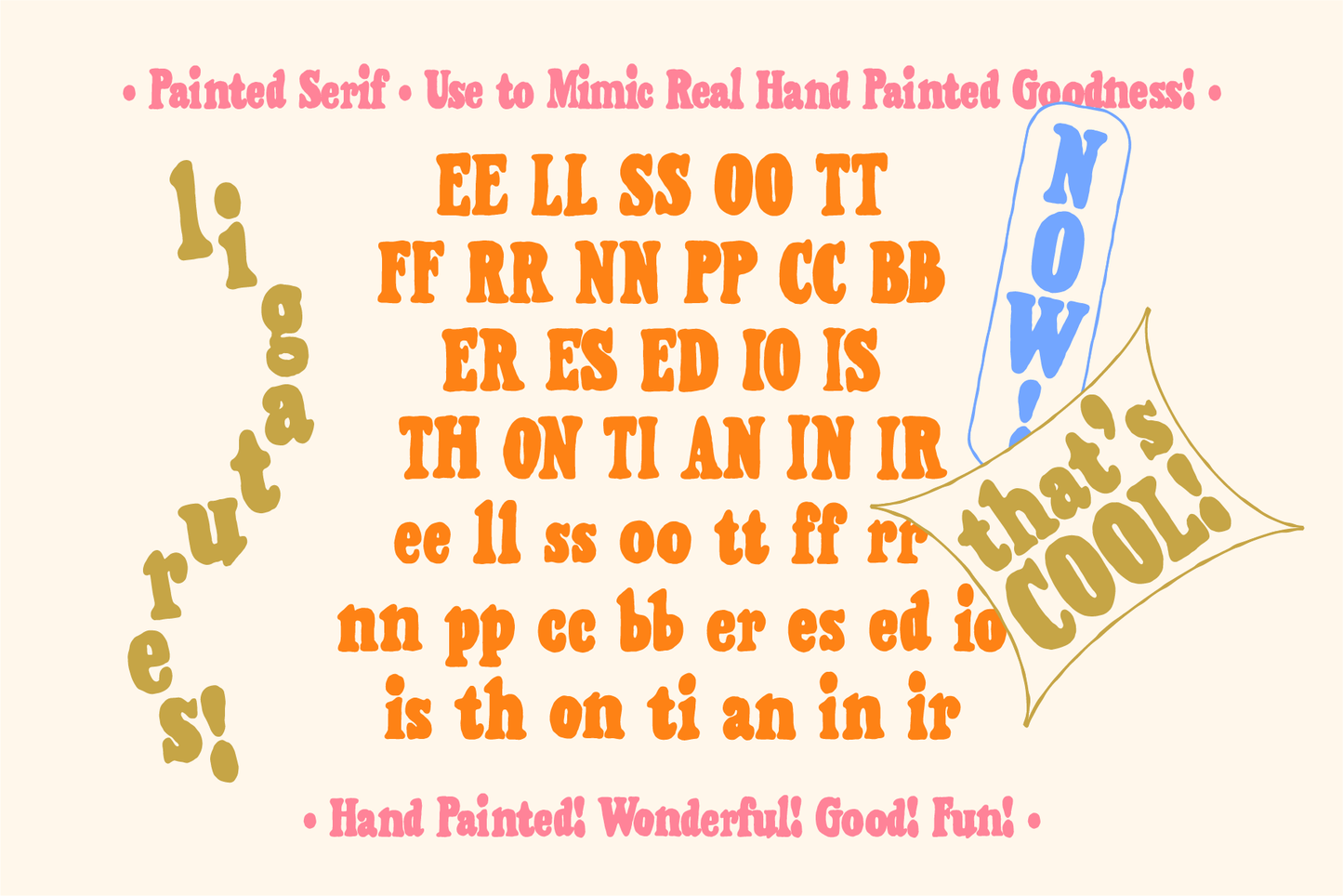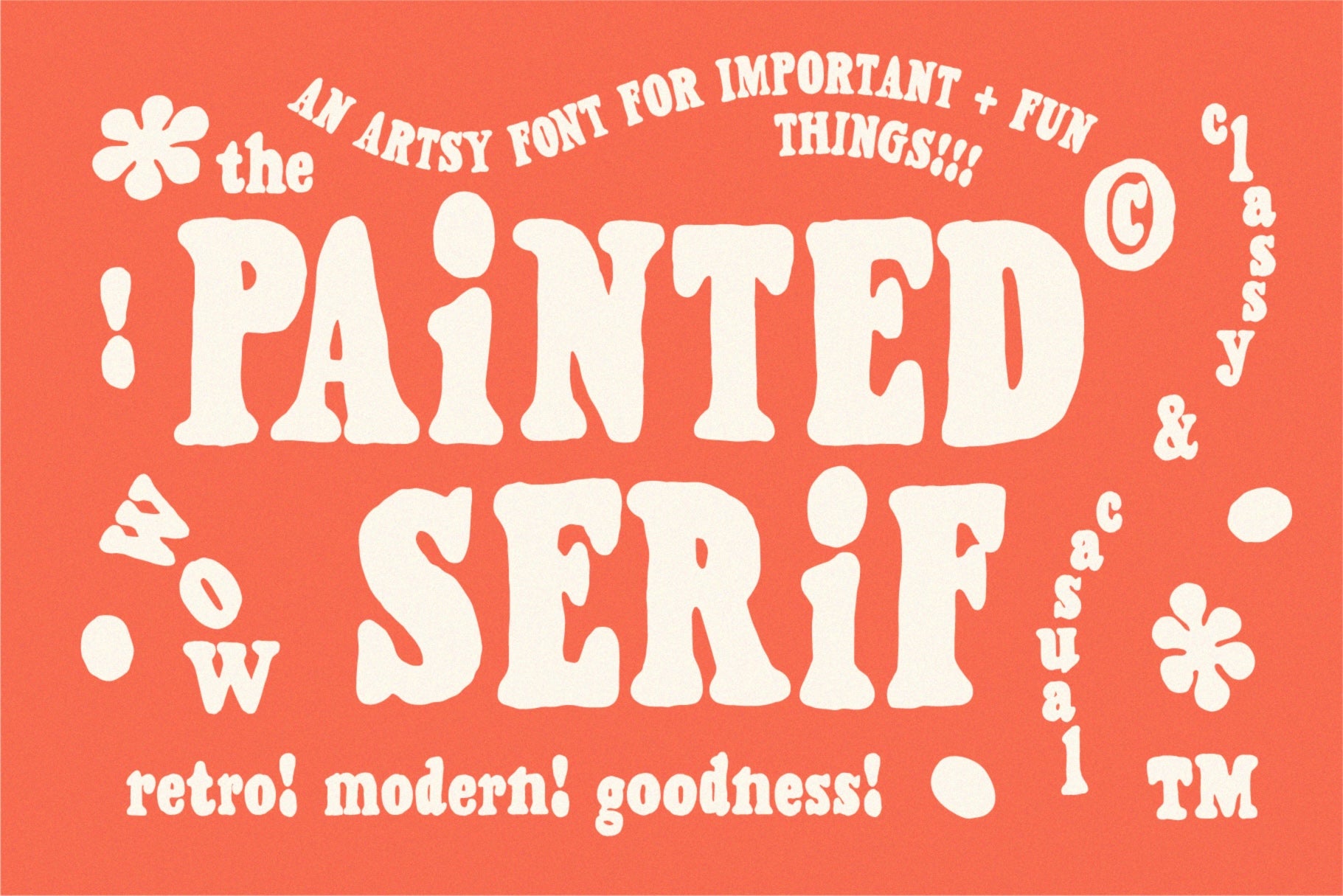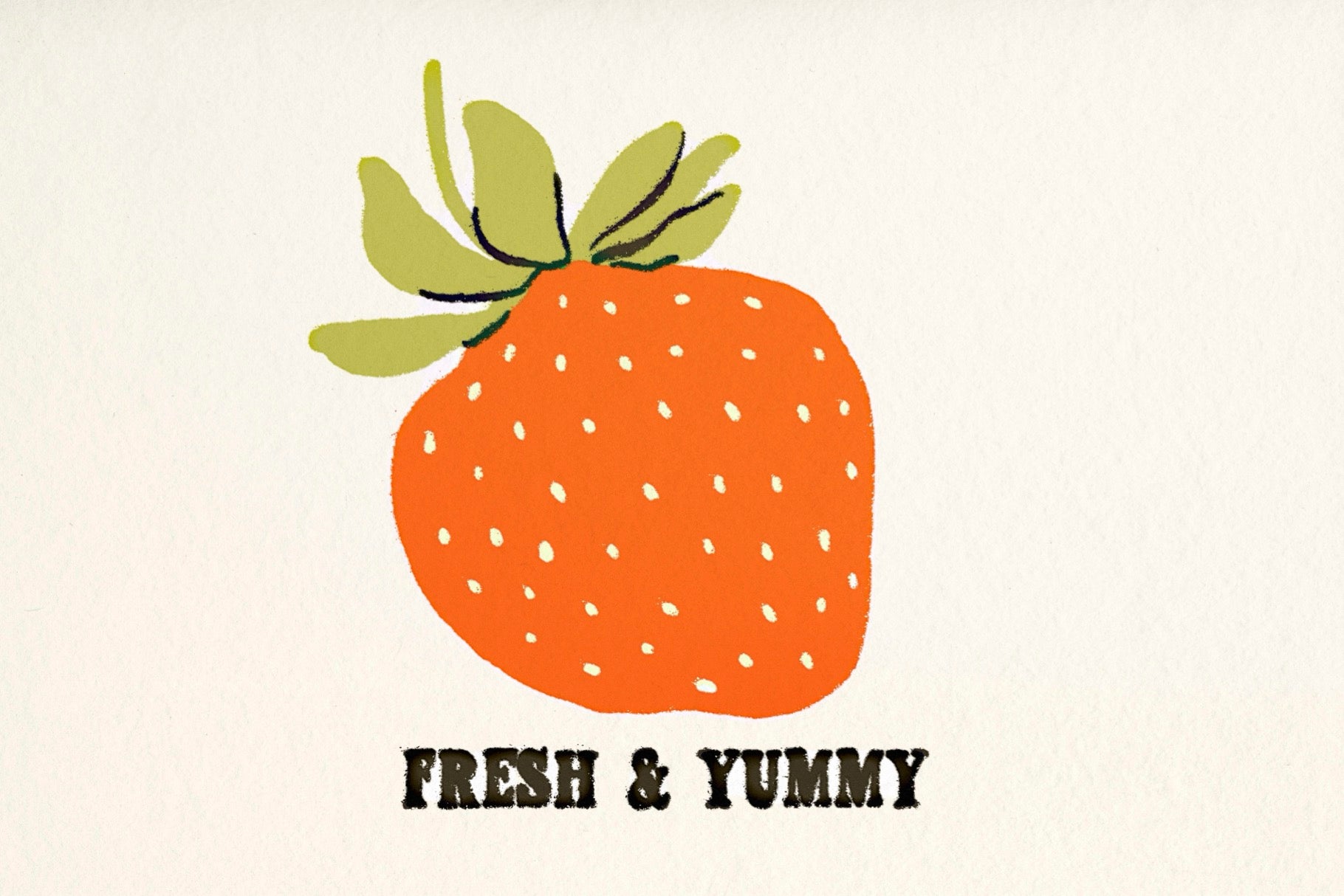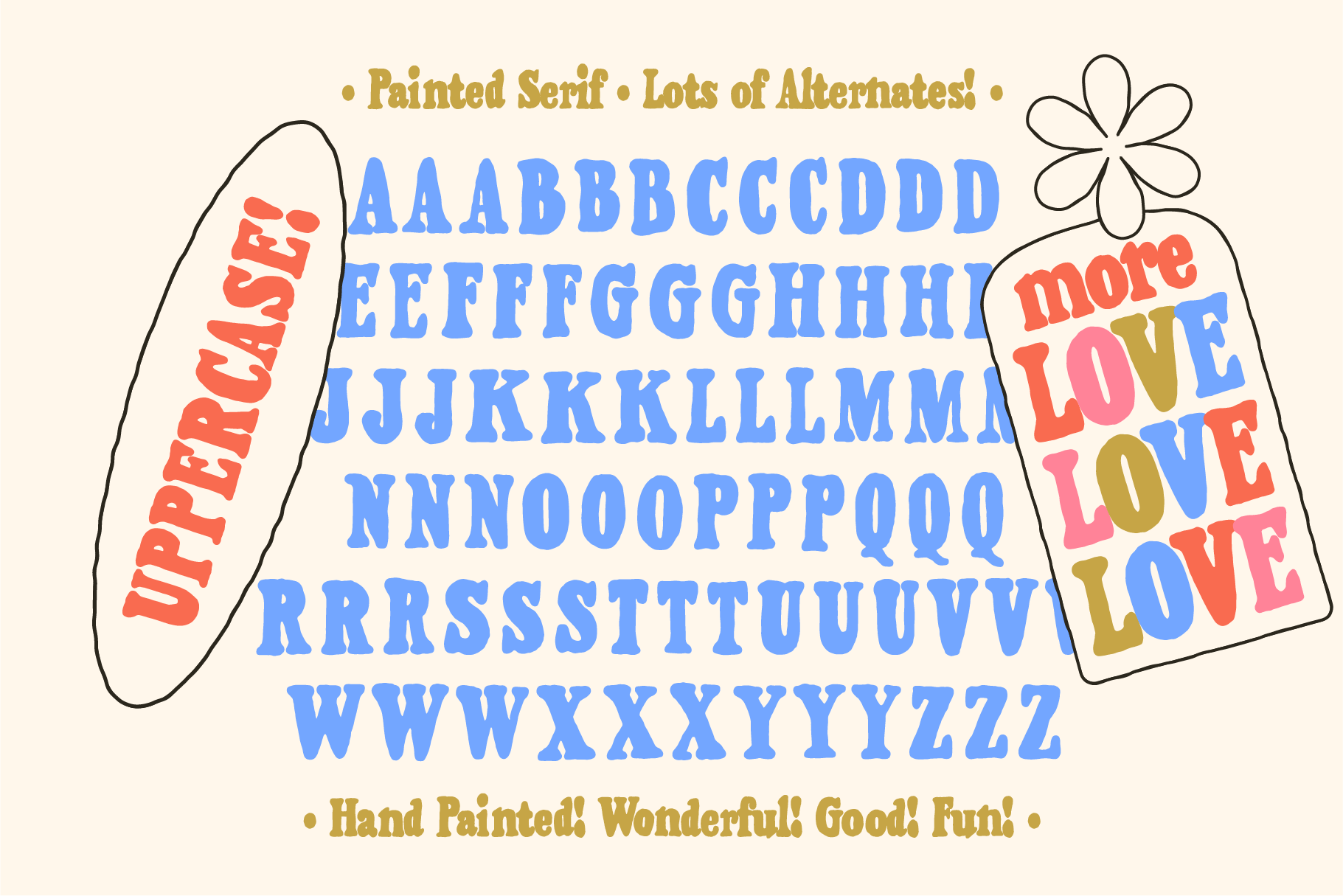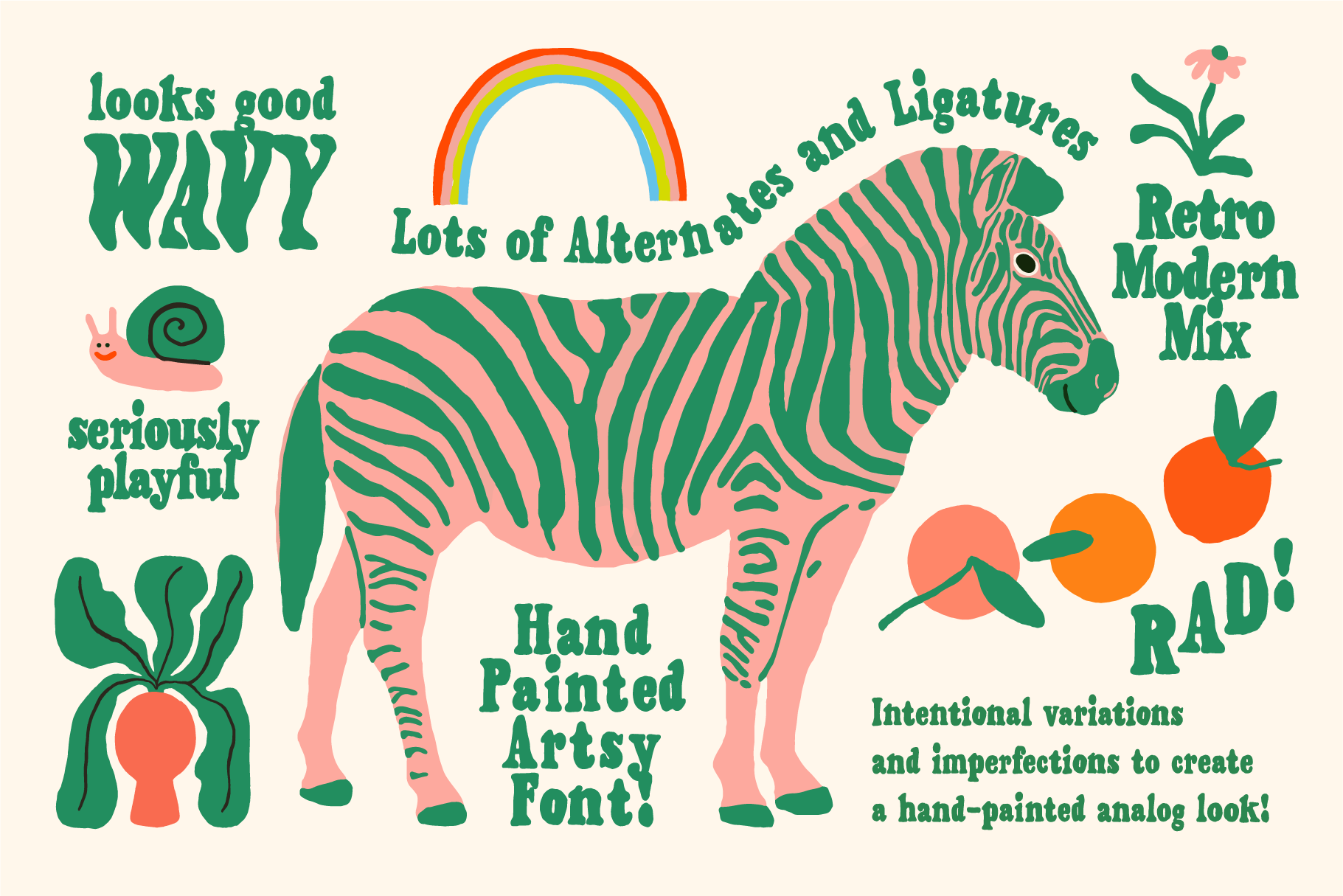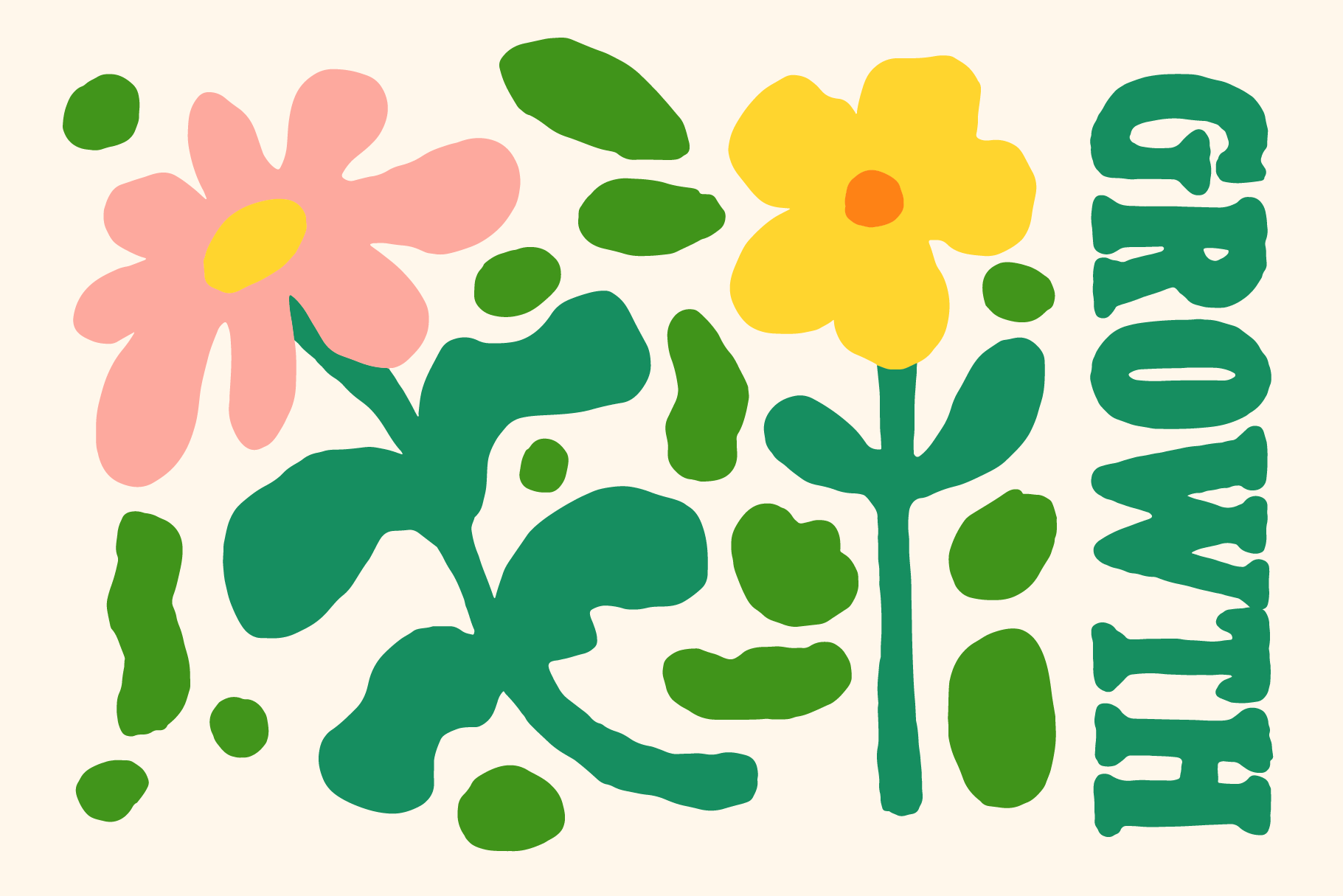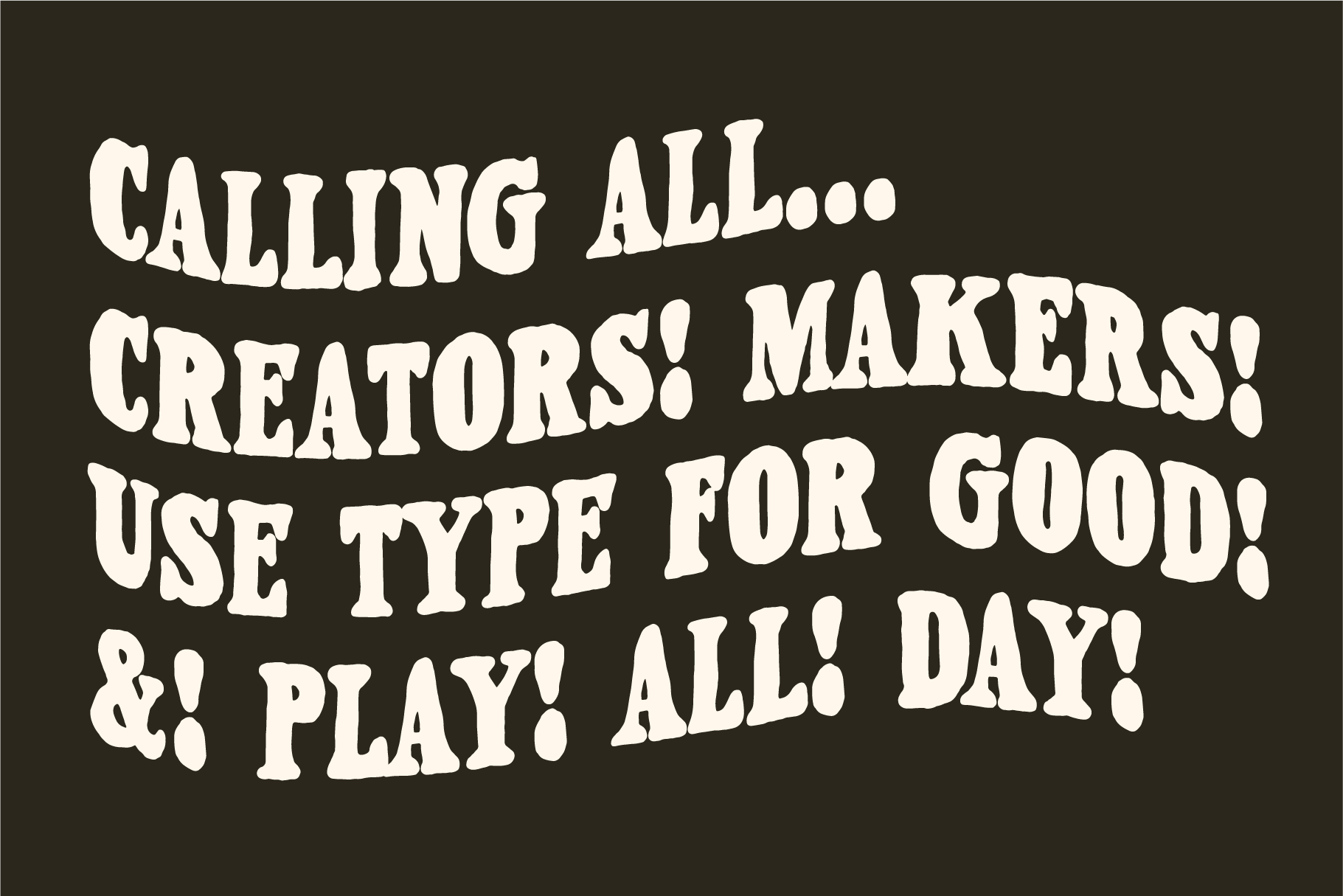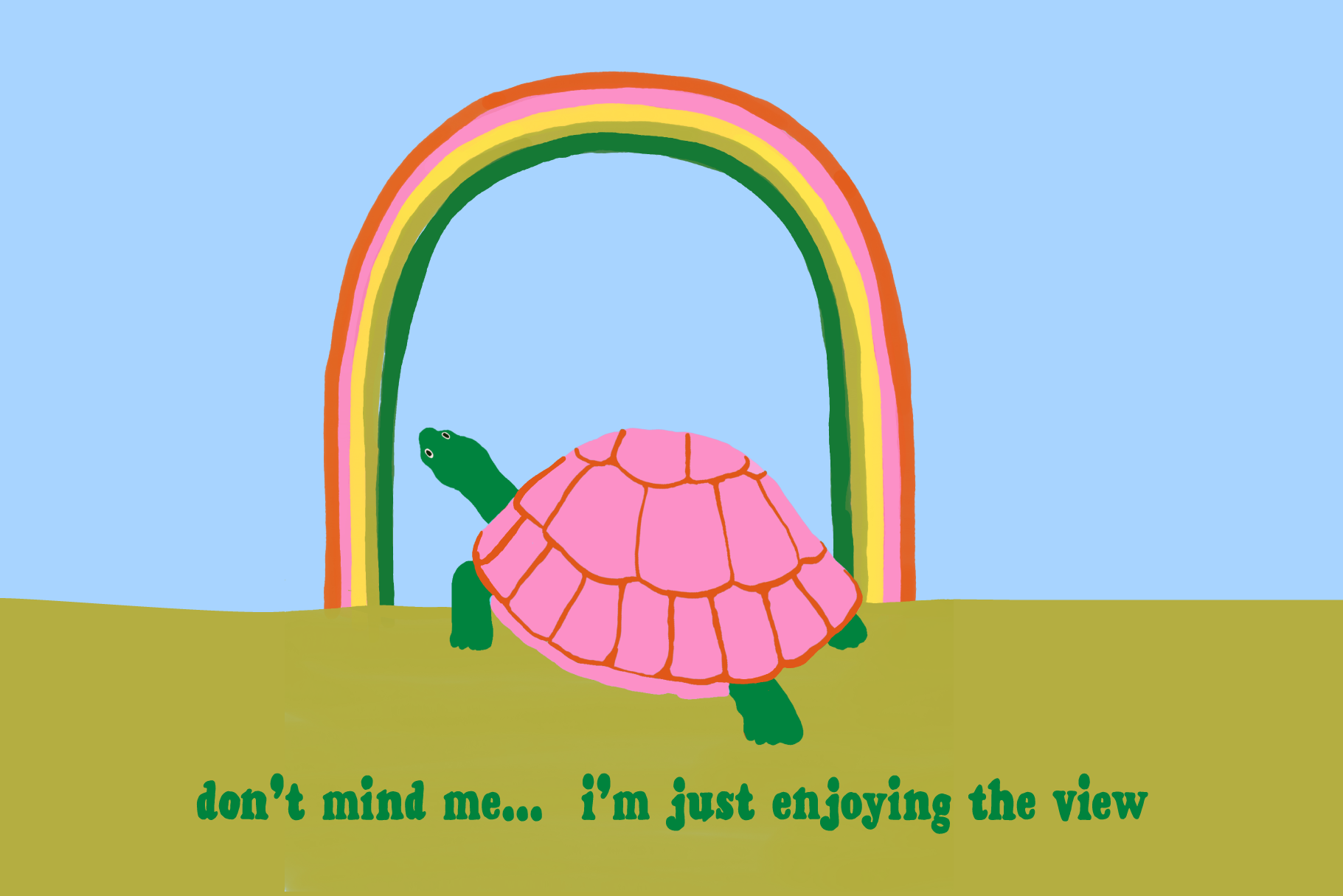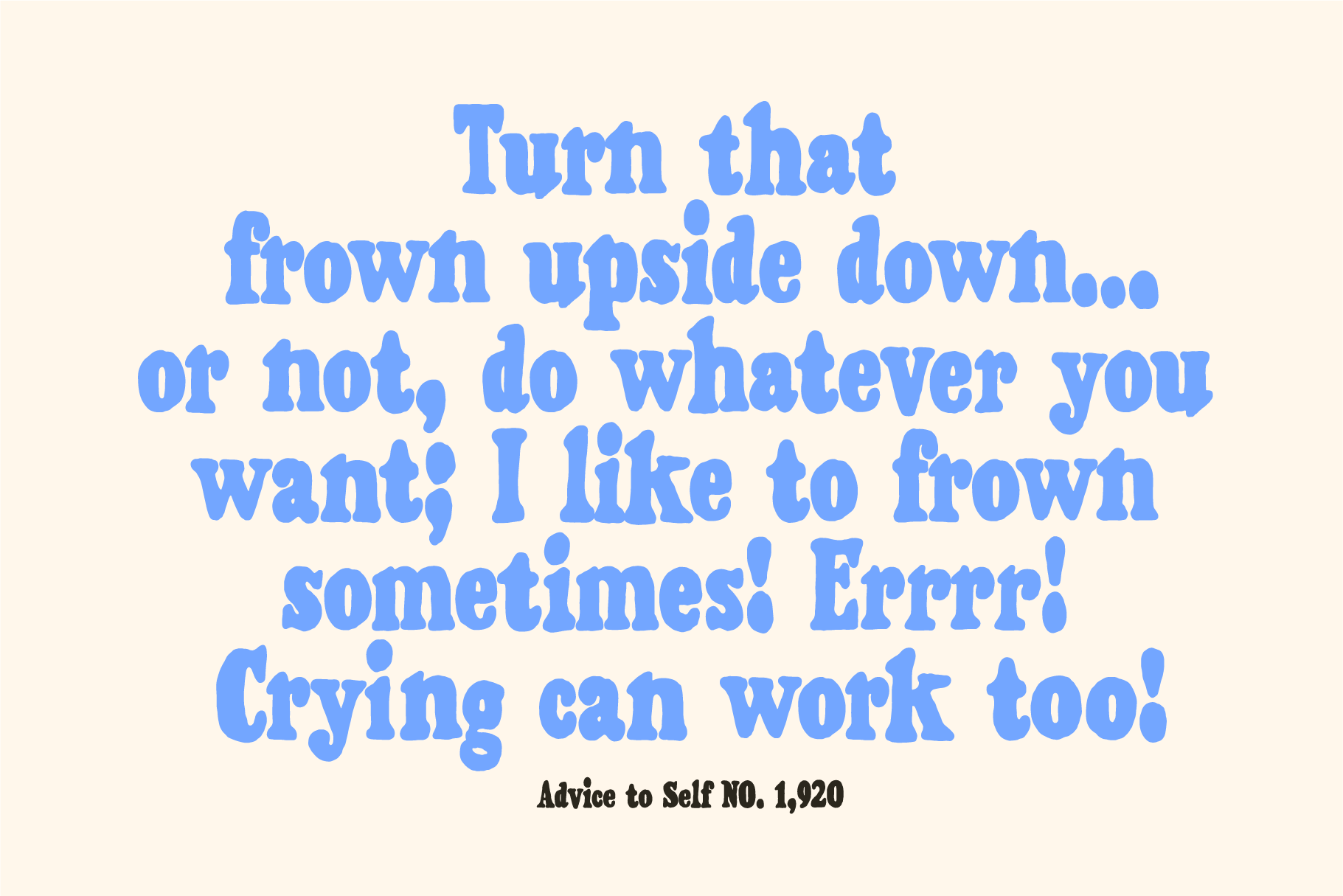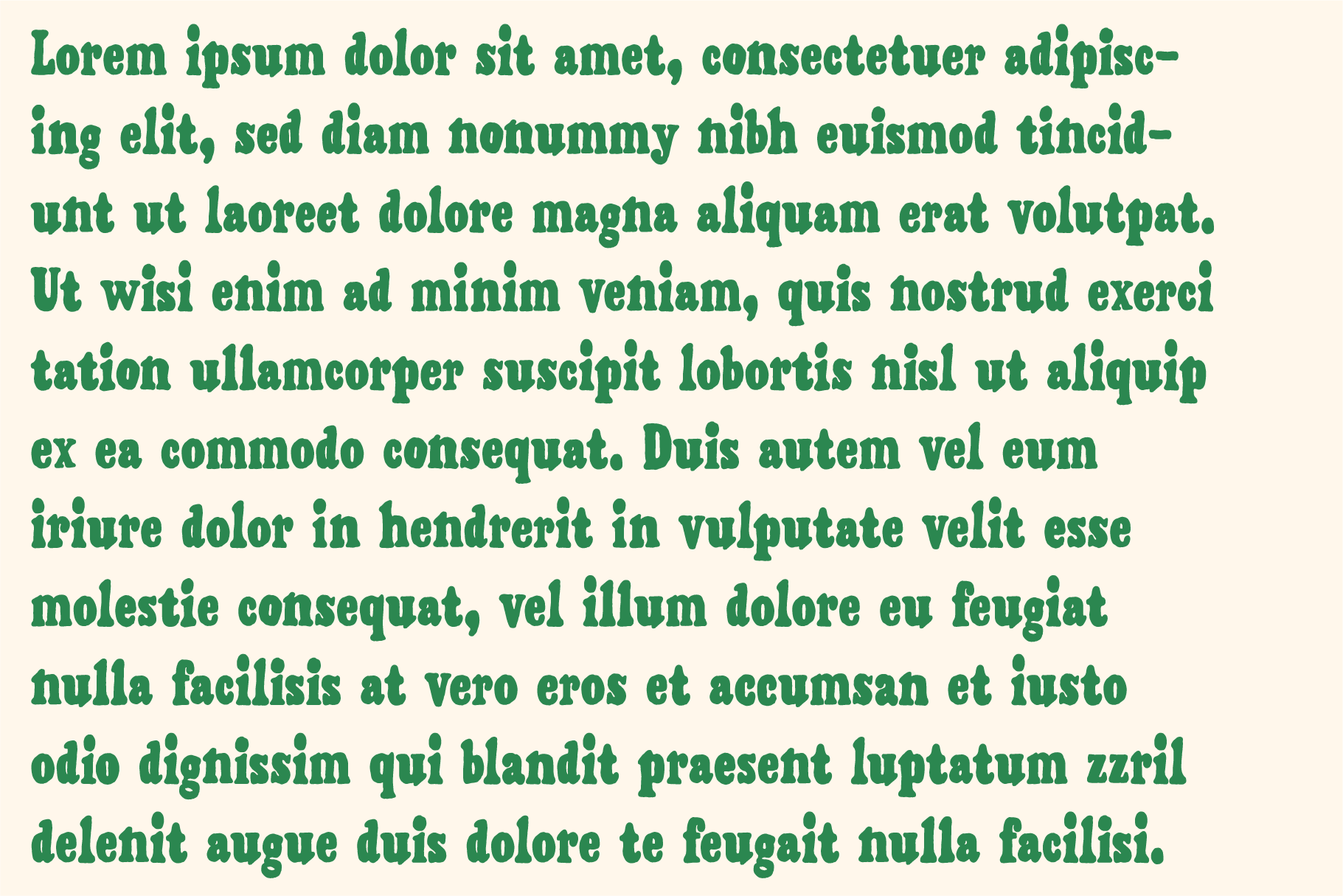
Painted Serif - Hand-lettered Font
Painted Serif brings all the charm of hand-painted lettering into a classic but casual serif style.
Each letter was painted by hand, full of natural texture, soft edges, and subtle quirks that give it a modern-meets-retro feel. It’s perfectly imperfect, lively, warm, and a little bit fancy without trying too hard.
With variations in shape, weight, and line quality, every word feels organic and full of movement.
Painted Serif works beautifully for branding, packaging, posters, or any design that wants that easygoing, hand-painted touch.
- Uppercase & Lowercase A–Z
- Numbers, Symbols & Punctuation
- Alternates & Ligatures for natural variation